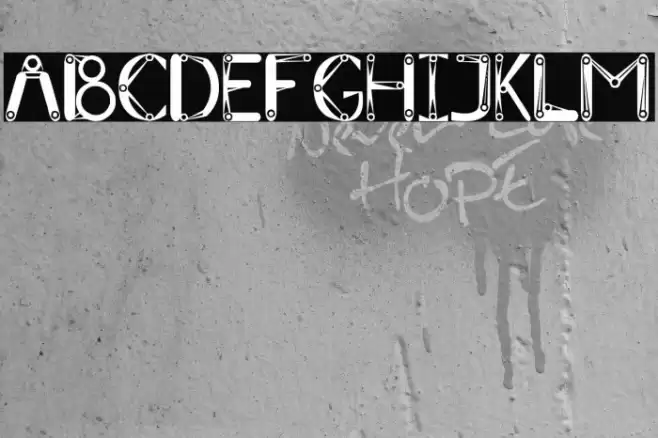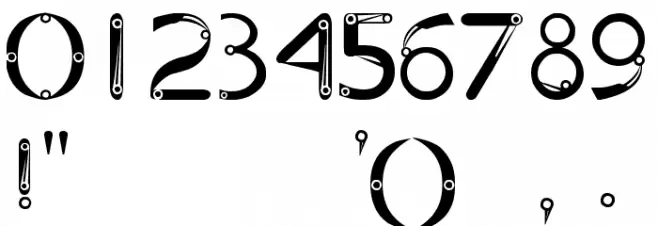
Mechanical Font
Mechanical Description
This font features a unique mechanical and industrial design, with each character resembling parts of machinery or tools. The letters are constructed with elements that mimic bolts, screws, and metal plates, giving it a distinct, engineered appearance. The uppercase and lowercase letters maintain this theme consistently, with a playful yet structured look. Numbers and special characters are also designed to match the mechanical aesthetic, making the font cohesive and visually striking. The overall style is bold and eye-catching, suitable for projects that require a strong, thematic presence.
A mechanical-themed font with characters resembling industrial components from Decorative fonts.
- Proposed Projects: Ideal for engineering-themed posters, industrial design branding, or tech-focused advertisements.
- Overall Style: Modern, Industrial